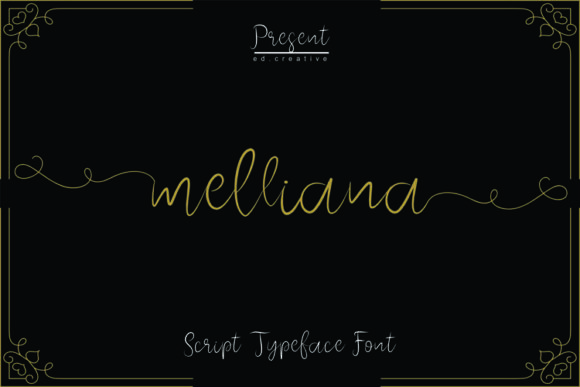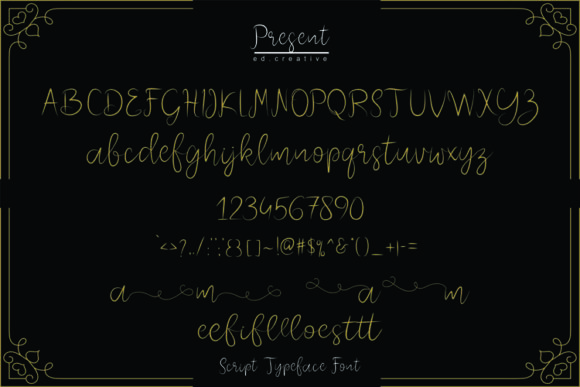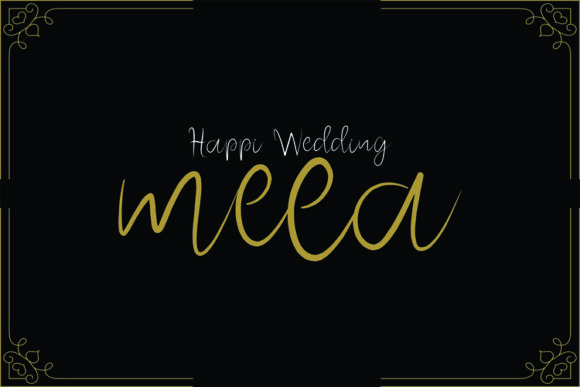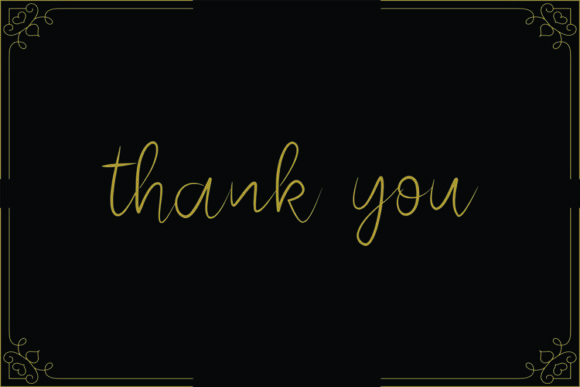
Melliana Font
About Melliana Font
The Melliana is a modern calligraphy font with a beautiful handwritten style. It contains lots of swashes which will give your design an elegant feel.